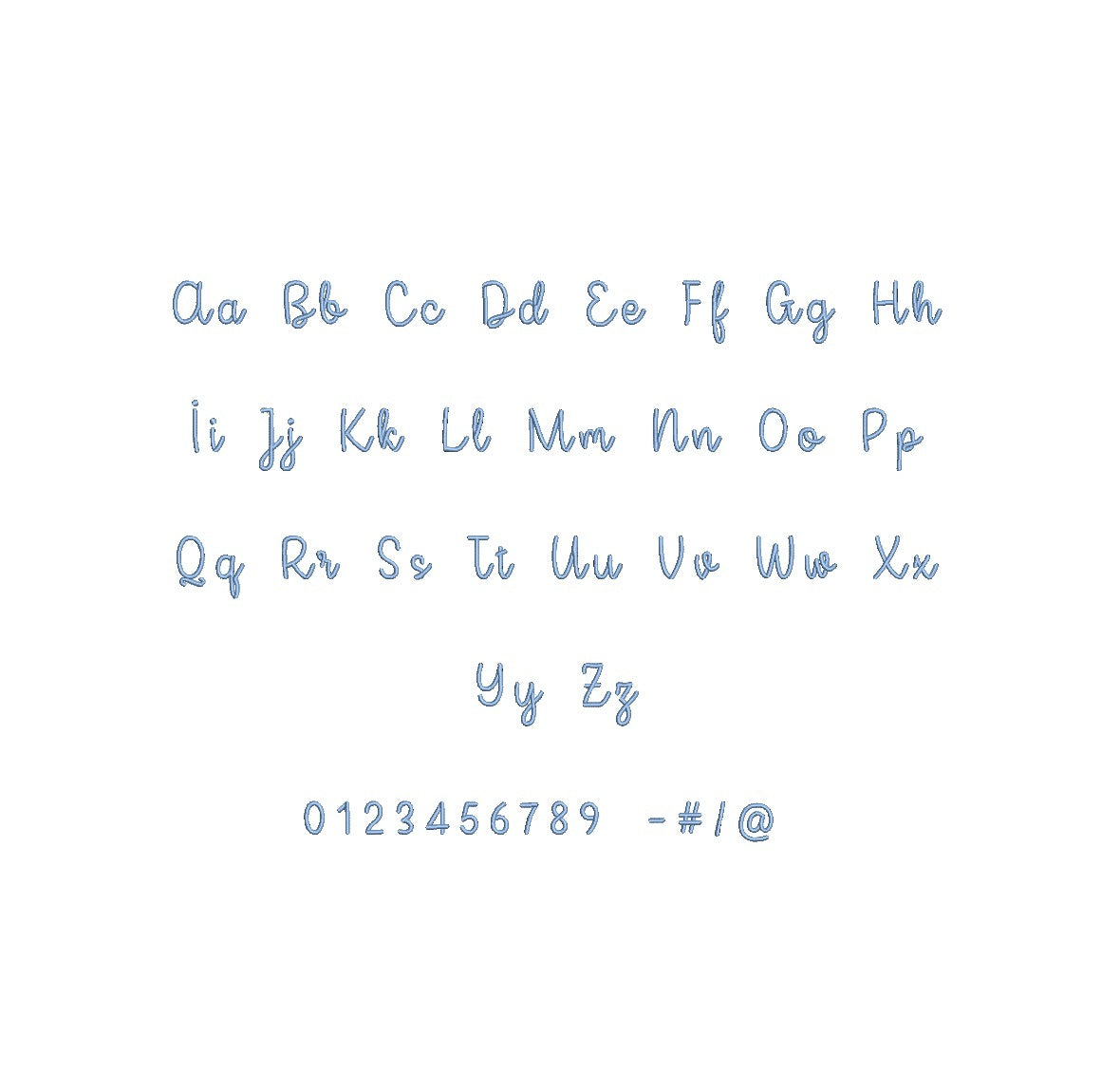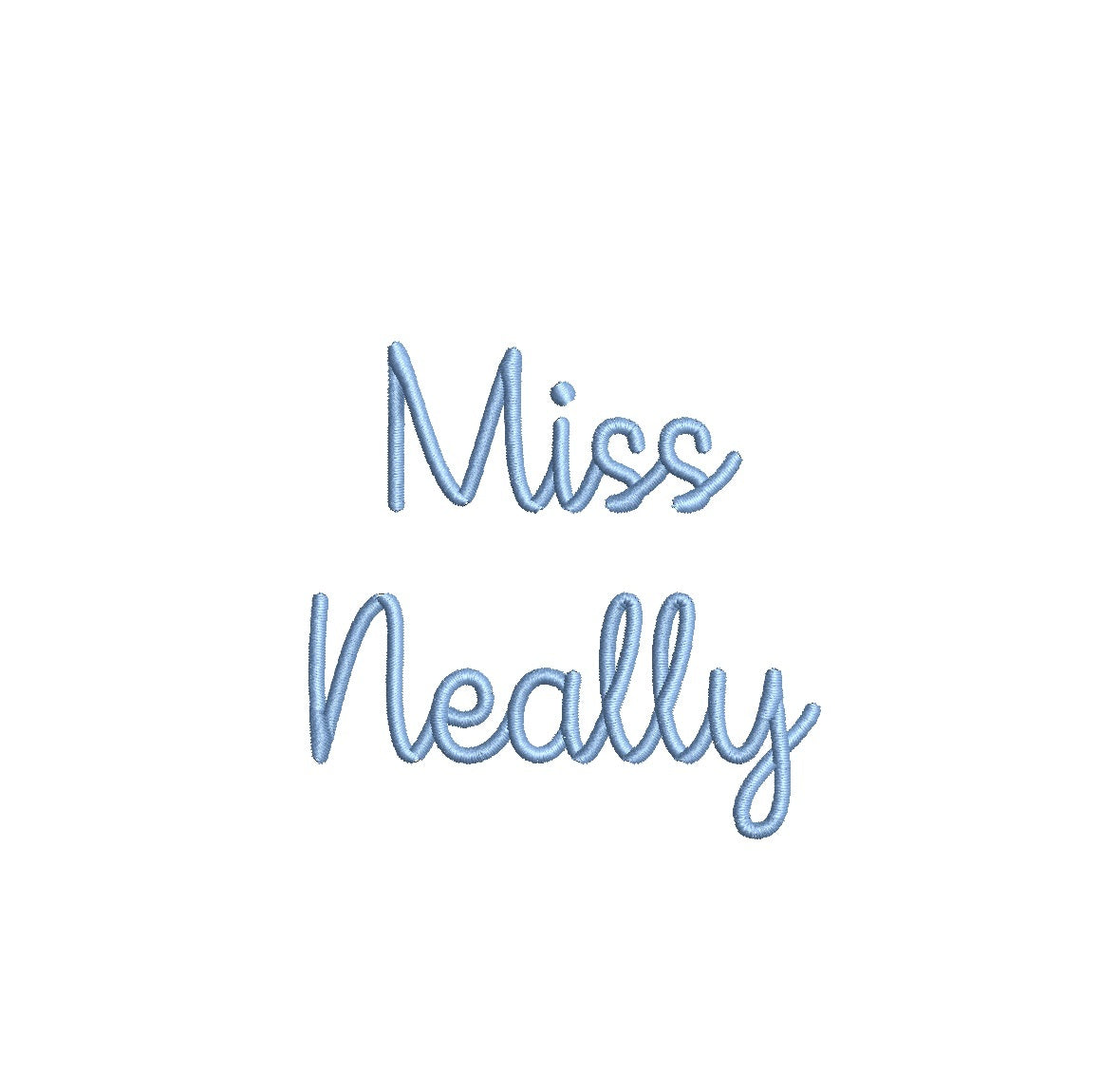
Introducing Miss Neally Regular ESA Font, the ultimate companion for your embroidery masterpiece! Seamlessly compatible with Wilcom Studio e4.5.6 and Hatch 3 versions and beyond, this font unlocks a world of creative possibilities. Elevate your embroidery projects with Miss Neally's precision, elegance, and versatility. It's the perfect choice for logos, monograms, and all text elements. Whether you're a seasoned professional or an enthusiastic hobbyist, Miss Neally empowers you to achieve unmatched style and readability. Don't miss the chance to enhance your designs effortlessly—acquire Miss Neally Regular ESA Font today and experience embroidery excellence like never before!